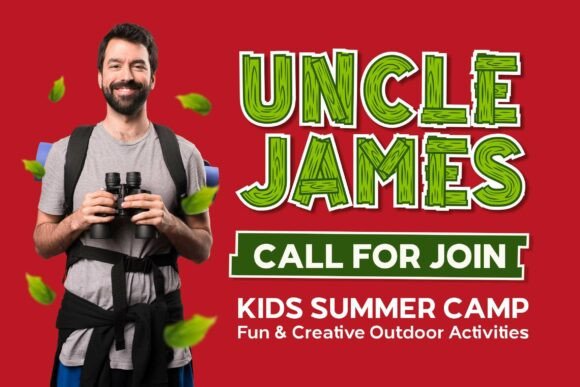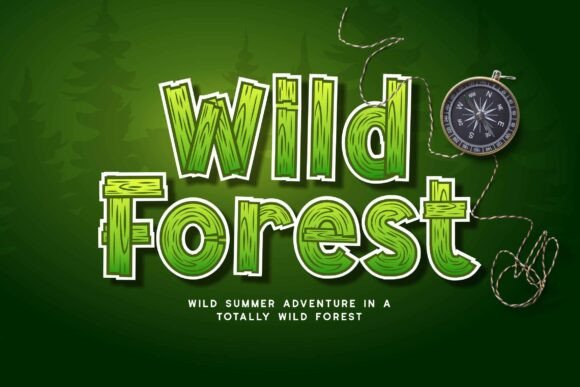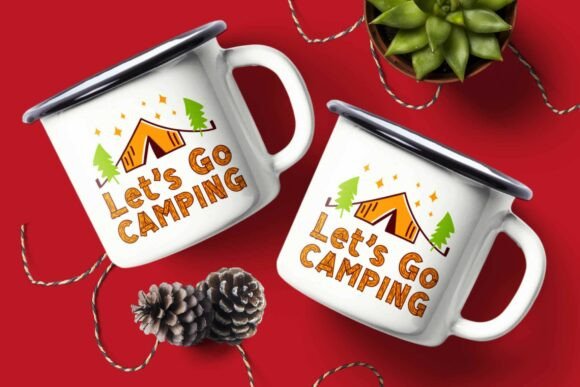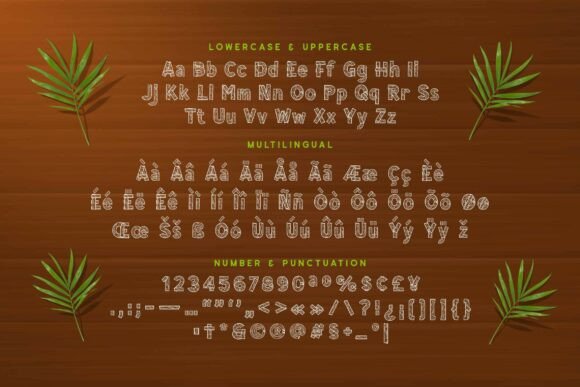
Introduction to Naturequest Font Font
Fonts play a crucial role in design, and the Naturequest Font font is a typeface that brings both character and versatility to any project. Whether you’re working on a branding project, a website, or a print design, the Naturequest Font font offers a unique style that can elevate your work.
Nature Quest is a playful and adventurous display font that brings the spirit of the great outdoors directly to your designs.
Crafted with a charming, blocky style, each letter features a beautiful wood grain texture, giving it an authentic, hand-carved feel Itβs as if the letters were cut right from the trees of a wild forest.
Key Features of Naturequest Font Font
Why Choose Naturequest Font Font?
The Naturequest Font font is more than just a typeface β it’s a design tool that helps you communicate your message with style and clarity. Its unique character set and versatile design make it suitable for a wide range of applications, from elegant invitations to bold headlines.
With its carefully crafted letterforms and balanced proportions, the Naturequest Font font ensures readability and visual appeal across all mediums.
What makes Naturequest Font font special?
The Naturequest Font font stands out with its unique design, exceptional readability, and versatility across various design applications.